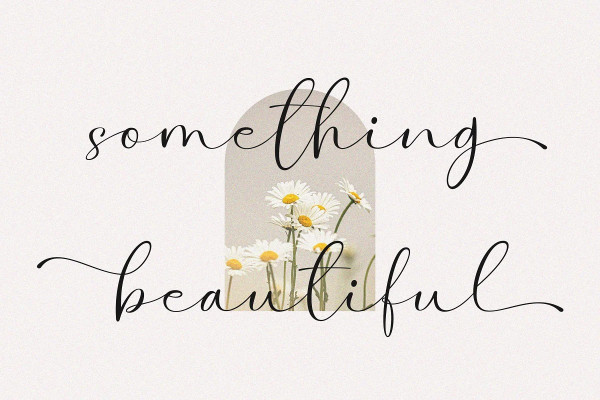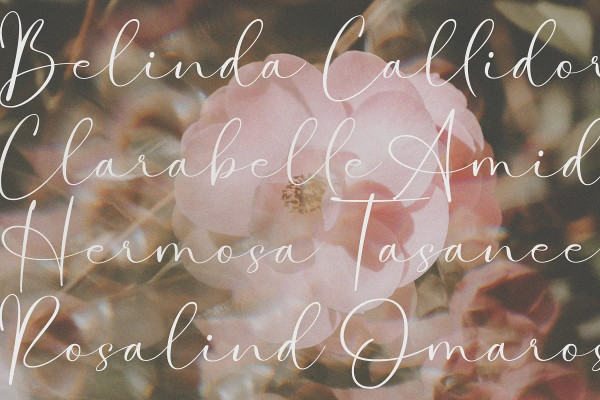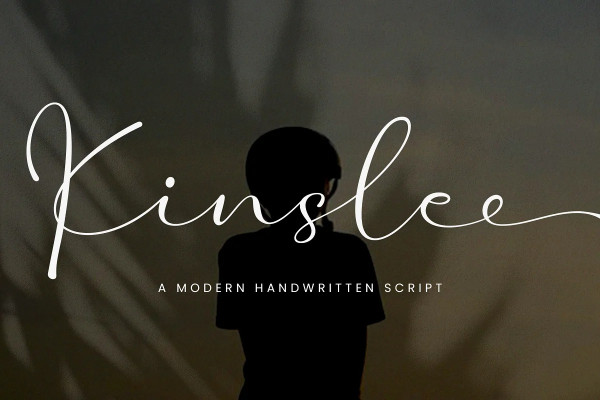
Kinslee Font
Kinslee Font – Calligraphy Font, our latest creation, modern serif with various alternates and ligatures, multilingual support, an updated blend of bohemian style, suitable for branding, business, logos, magazines, and others